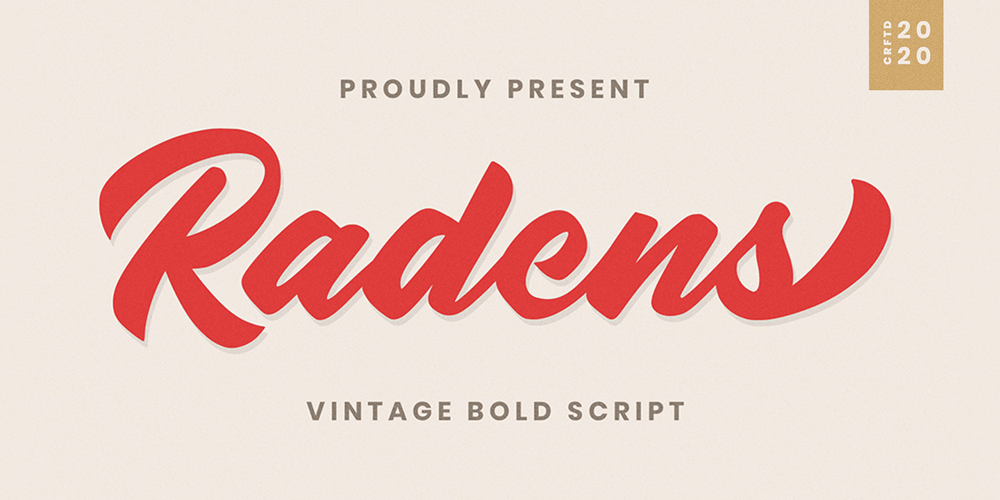
Radens
Radens font
Radens Font Family was designed by Abdul Malik Wisnu and published by Almarkha Type. Radens contains 1 styles and family package options. Introducing Radens Vintage Bold Script, Inspired by Modern Vintage & Retro style and combination with old american traditional style. that will fulfill your design needs for quotes,sporty theme, logotype, wordmark, etc. This has many opentype features and support multi language.